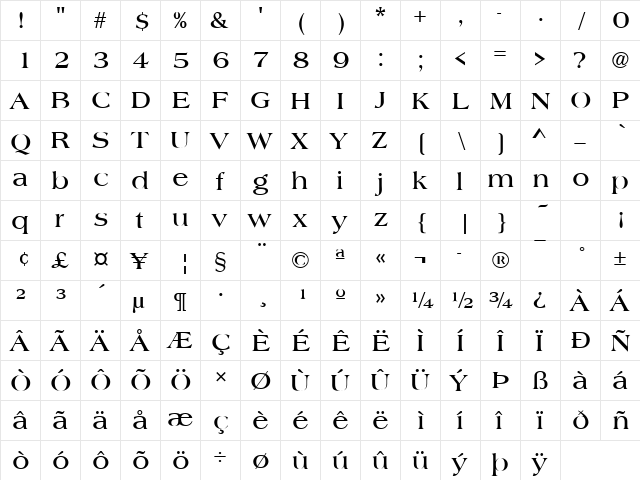
Americana Becker Bold
Design Context for Americana Becker Typeface
Americana Becker is a composed and adaptable typeface that performs quietly and consistently across a wide range of design contexts. Its bold stroke weight gives it real presence on the page.